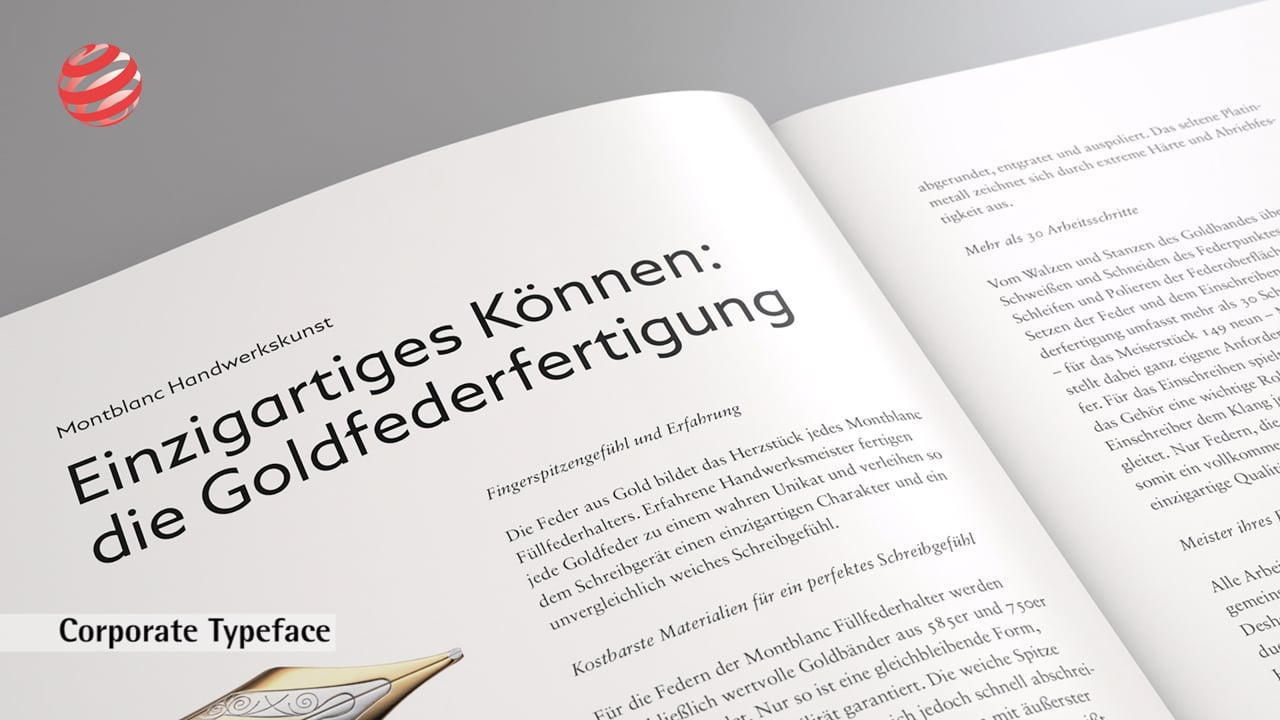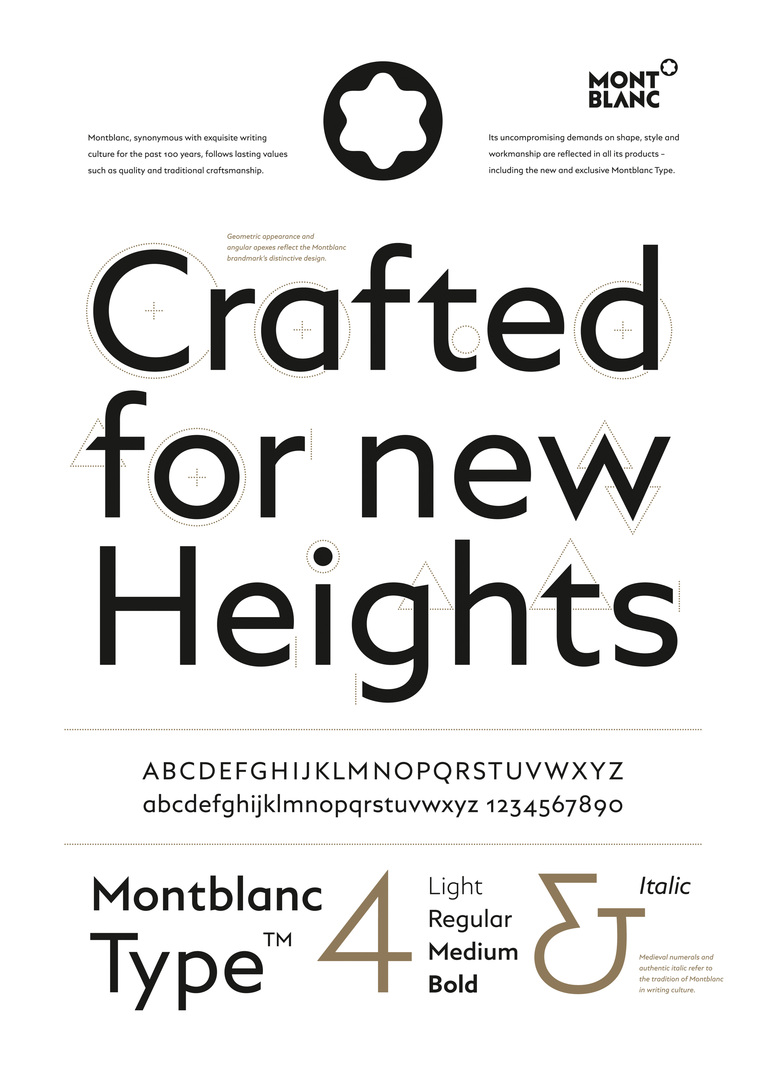
The redesign of the corporate typeface for Montblanc masters the challenge of lending a modern appearance to a well-known, tradition-steeped brand, yet keeping the brand recognisable and thus respecting the brand legacy. The result is a well-balanced typeface that catches the eye with a design marked by excellent craftsmanship, and one which is suitable for both analogue and digital applications.